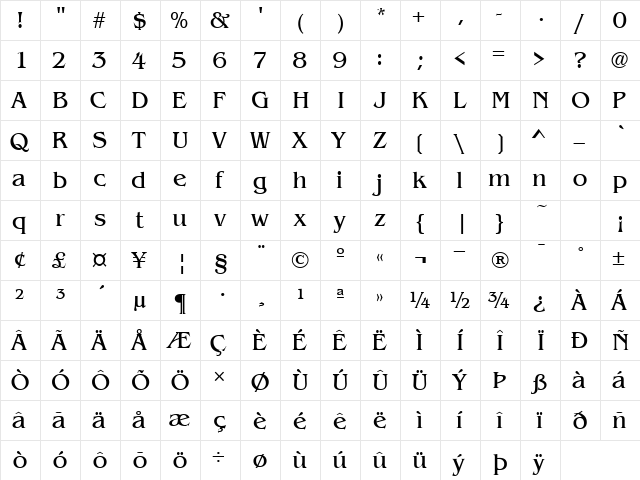
WandSSK Regular
Design Context for WandSSK Typeface
WandSSK takes a measured approach to typography — its balanced proportions and neutral character make it a reliable workhorse for both digital and print work.